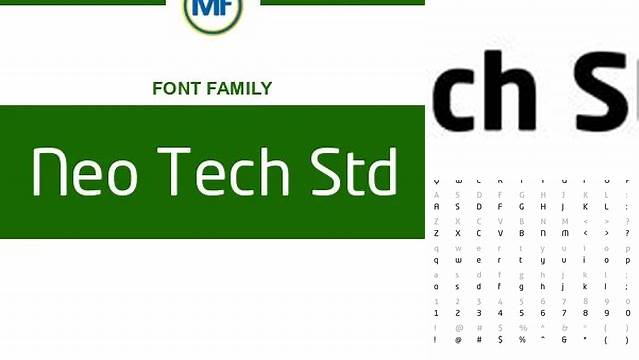
Hey guys! Ever stumbled upon a sleek, futuristic design and wondered about the font? Chances are, it might just be Neo Tech STD! This font is seriously popular, especially for projects that need a modern, technological vibe. But finding it for free? That's the real quest. Don't worry, though; we're diving deep into everything Neo Tech STD, from what makes it so cool to how you can (legally!) get your hands on it. So, buckle up and let's get started!
What is Neo Tech STD Font?
Before we even start on the whole download thing, let's talk about what makes Neo Tech STD so special. This font isn't just another typeface; it's a statement. Imagine a font that screams modern, technical, and clean. That's Neo Tech STD in a nutshell. It's got these super-geometric shapes, giving it a super-crisp and almost robotic feel. This makes it perfect for things like website headers, logos, posters, and even those futuristic UIs you see in movies. Think of Neo Tech STD as the font equivalent of a super-cool tech gadget β sleek, functional, and totally eye-catching. The unique character shapes make it stand out, ensuring your designs have a contemporary edge. Seriously, if you're aiming for a tech-savvy look, this font is your best friend.
Neo Tech STD Font Features
Okay, so what exactly gives Neo Tech STD its killer look? It's not just the overall style; it's the nitty-gritty details that make this font a design powerhouse. For starters, the geometric shapes are seriously on point. Each letter is crafted with precision, giving it a super-clean and professional feel. The spacing between letters? Impeccable. This font is all about readability, even at smaller sizes. The strong, clean lines ensure that your message comes across loud and clear. Plus, Neo Tech STD usually comes in a few different weights, from light to bold, giving you plenty of flexibility for your designs. Need a subtle headline? Go light. Want to make a statement? Crank it up to bold! It's this versatility that makes Neo Tech STD a go-to choice for designers. The consistent design across all characters makes it incredibly versatile for various applications, from web design to print materials.
Neo Tech STD Font Family
When you talk about a font family, you're talking about a whole set of variations on a single typeface. Think of it like siblings β they all share the same DNA but have their own unique personalities. Neo Tech STD usually comes with a few variations, most commonly in terms of weight. You might find a Neo Tech STD Light, a Regular, a Bold, and even an Extra Bold. This range is super handy because it lets you create visual hierarchy in your designs. Imagine using the Bold for headlines, the Regular for body text, and the Light for captions. Boom! Instant professionalism. Some versions might even include italic styles, giving you even more options. Having a complete font family at your disposal ensures consistency across your project, giving it a polished and professional look. This is particularly important for branding, where consistent typography is key.
Neo Tech STD Font Usage Examples
Alright, let's get real and talk about where Neo Tech STD really shines. This font is like the Swiss Army knife of design β super versatile. Think logos for tech companies, websites for startups, posters for electronic music eventsβ¦ the list goes on. The clean, geometric look makes it perfect for anything that needs a modern, futuristic feel. Imagine a website header in Neo Tech STD Bold β instant impact! Or perhaps a sleek logo for a new app. Neo Tech STD is also a great choice for print materials, like brochures and flyers. Its readability ensures your message gets across, even in smaller sizes. And don't forget those cool, futuristic UI designs! Neo Tech STD is a natural fit for anything that needs a touch of tech-savvy style. Its widespread use in the tech industry is a testament to its effectiveness in conveying a sense of innovation and modernity. Whether it's a website, logo, or marketing material, Neo Tech STD adds a touch of sophistication and technological edge.
Neo Tech STD vs. Similar Fonts
Okay, so Neo Tech STD is awesome, but what if you can't find it or want to explore other options? Luckily, there are tons of fonts out there that share a similar vibe. Think geometric sans-serif fonts like Montserrat, Futura, or even the classic Helvetica. These fonts have that same clean, modern feel, making them great alternatives. Montserrat, for example, is super popular and free to use, making it a fantastic option. Futura has a similar geometric structure to Neo Tech STD, giving it that same futuristic vibe. And Helvetica? Well, it's a classic for a reason β clean, readable, and always stylish. The key is to look for fonts with strong, clean lines and a geometric structure. Play around with different weights and styles to find the perfect fit for your project. You might even stumble upon a new favorite font in the process! Exploring similar fonts can also give you a broader understanding of typographic styles and their impact on design.